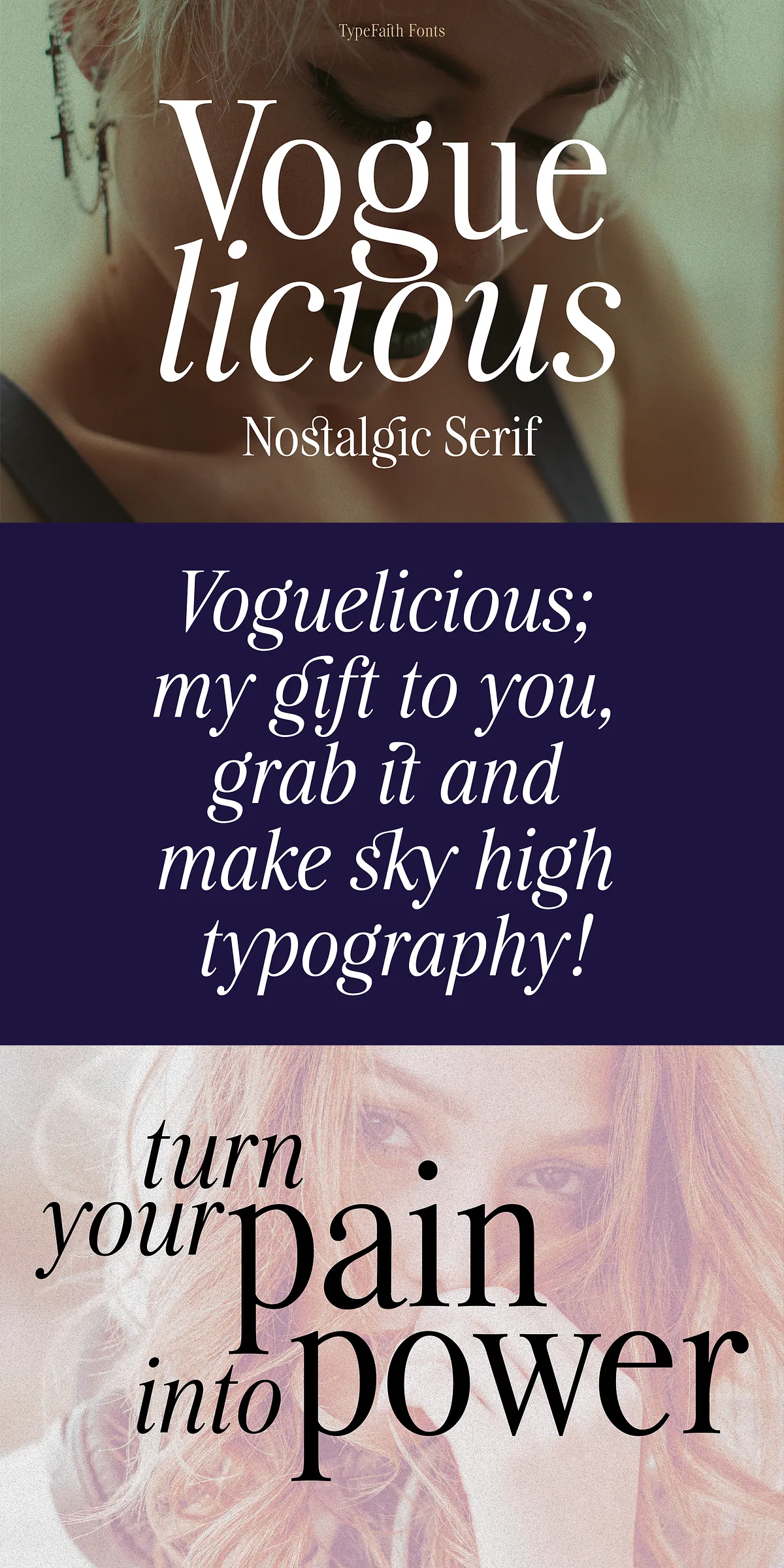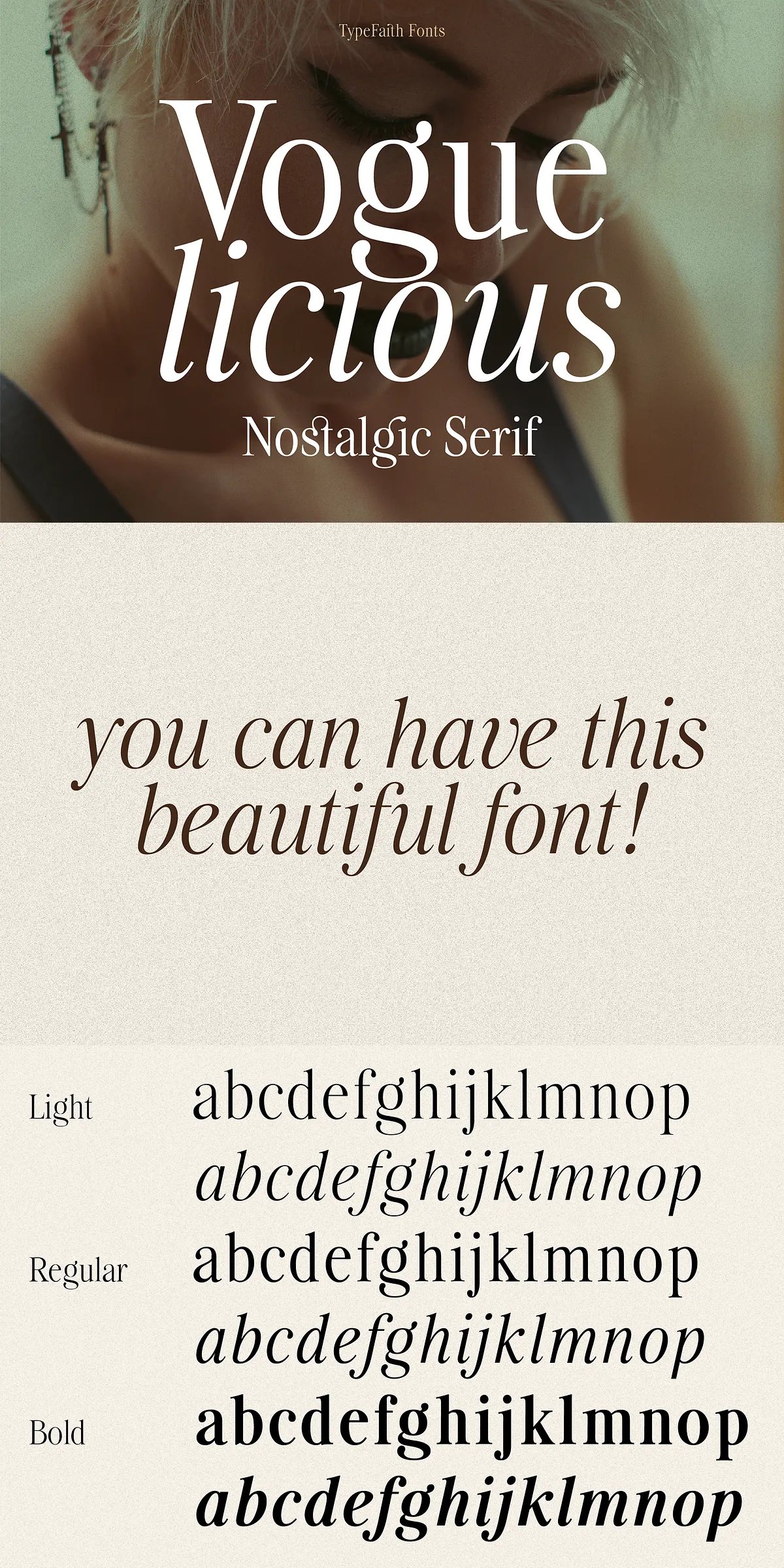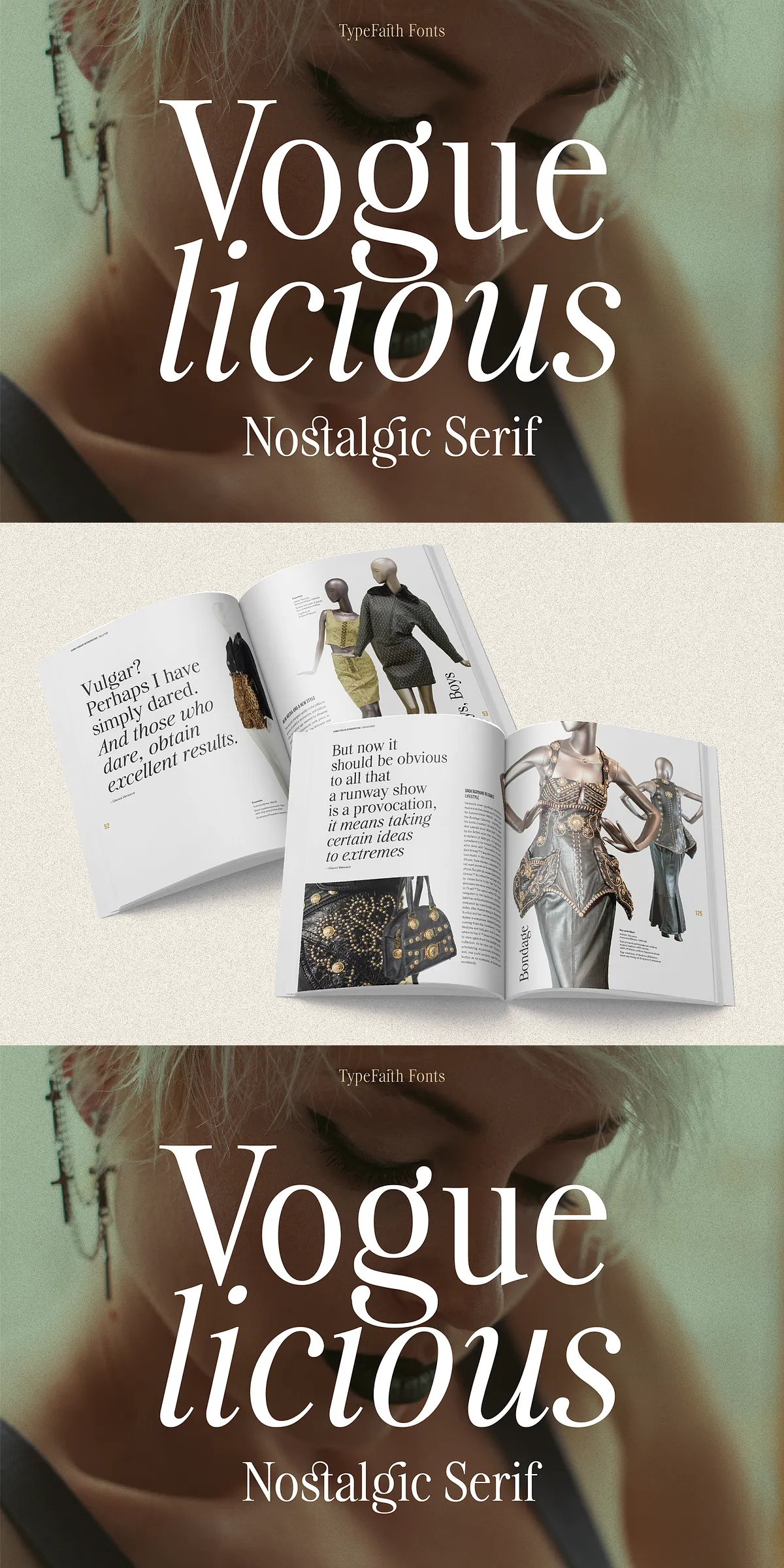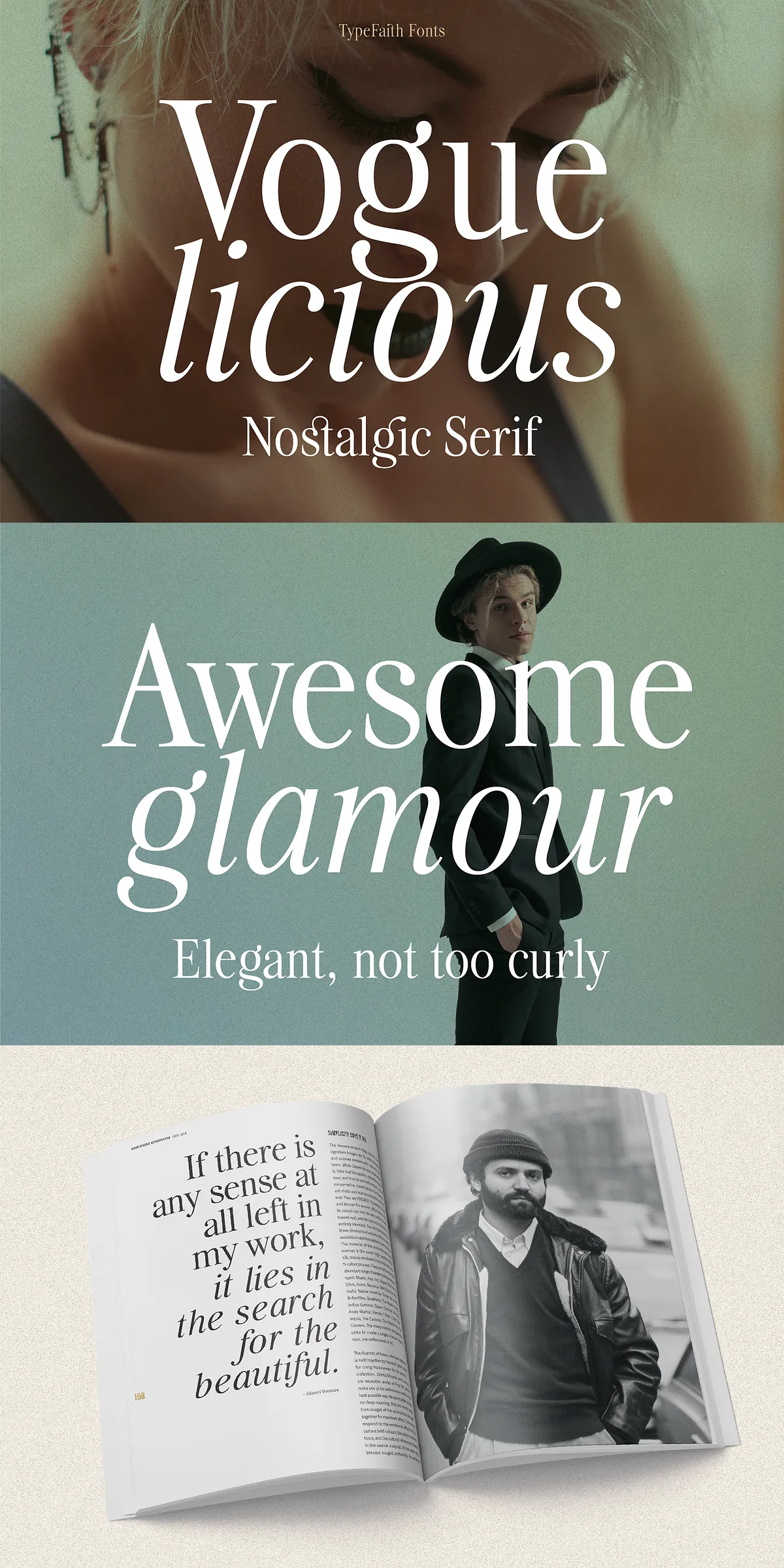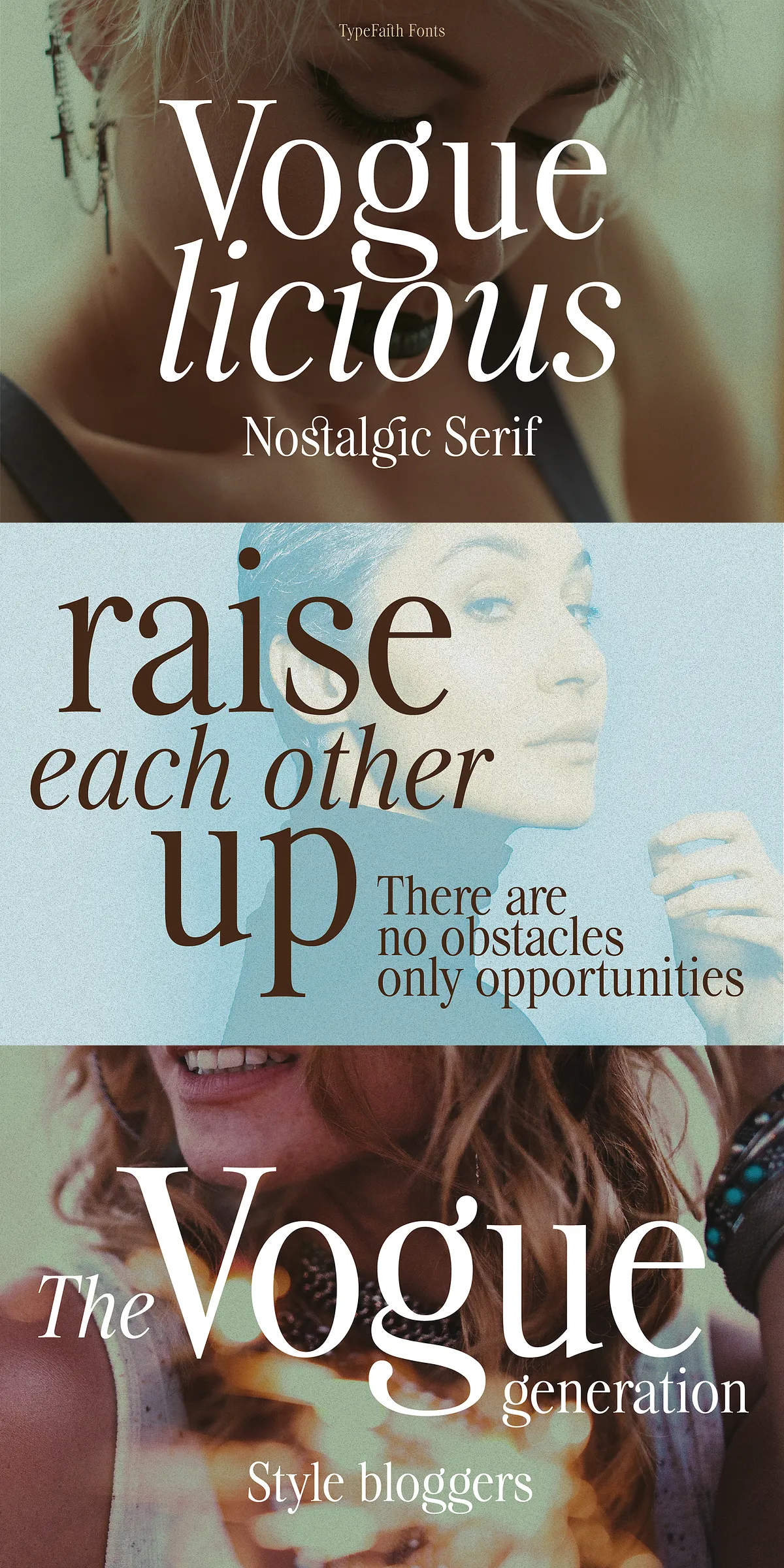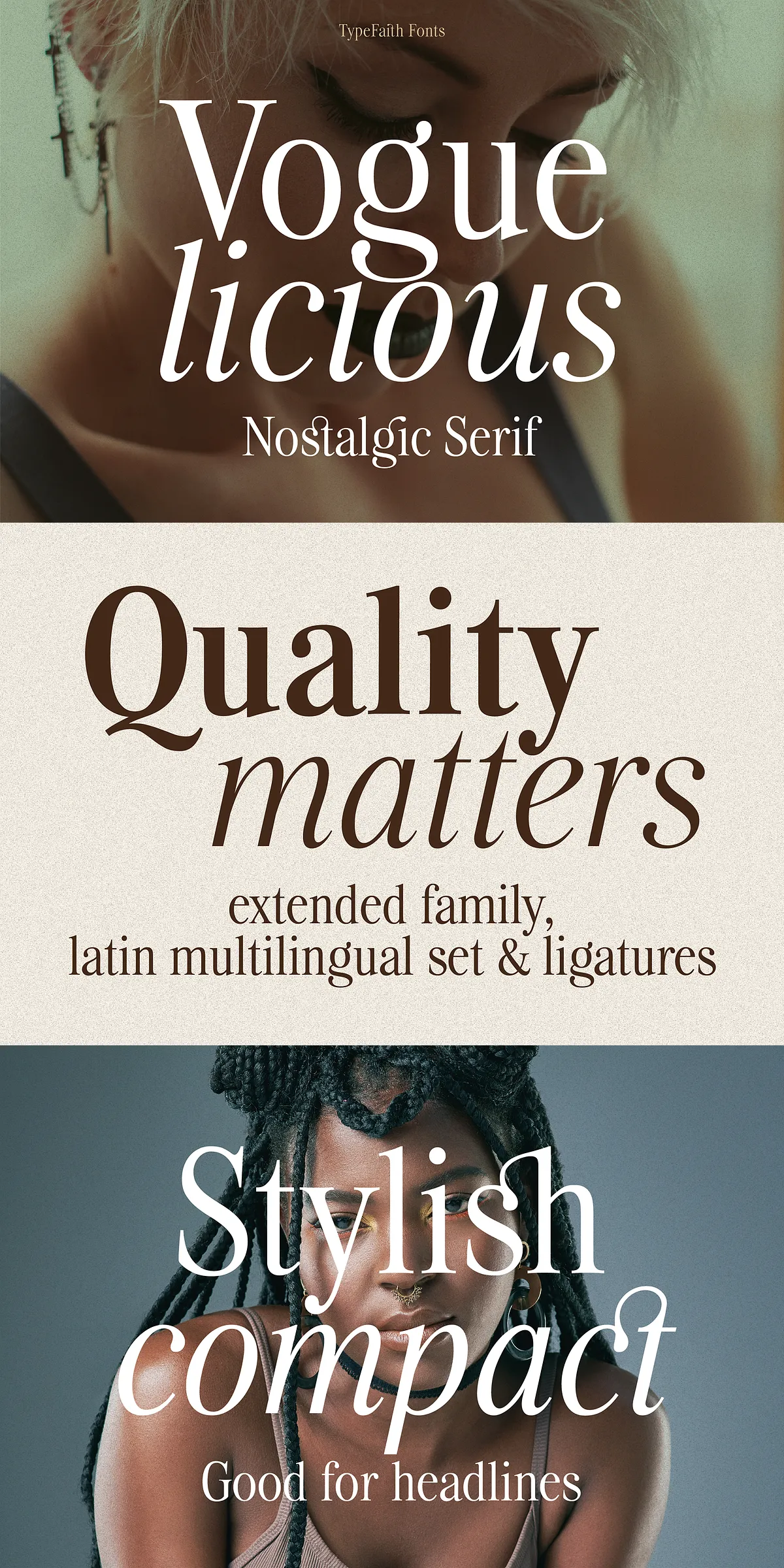
Step into a world of refined sophistication with Voguelicious—a timeless serif font family that captures the essence of classic French elegance, vintage fashion, and intellectual charm. Crafted for creatives who demand both beauty and function, Voguelicious isn’t just a font; it’s a statement. With six meticulously designed weights and true, flowing italics, this typeface brings a sense of chic authenticity to every project, from editorial spreads to luxury branding.
Elevate Your Design with True Vintage Sophistication
Designers and art directors will immediately feel the difference with Voguelicious. Its compact, balanced structure ensures high readability and visual polish even at smaller sizes, making it ideal for magazines, fashion editorials, and print layouts where space is precious but impact is paramount. Each character tells a story—one of cadre noir dressage precision, cozy academia warmth, and 1950s Parisian elegance.
- True Italic Variants — Not simulated, but handcrafted to match the soul of the regular design.
- Six Stylistic Weights — From delicate light to powerful bold, ensuring creative flexibility for any tone.
- Compact Proportions — Maximizes content density without sacrificing clarity or grace.
- Fluid Serifs & Elegant Curves — Create a harmonious rhythm across lines of text.
This is not a font that blends in—it commands attention with quiet confidence. Whether used in headline copy or body text, Voguelicious adds a layer of intellectual allure and visual authority.
Unlock Creative Power with Advanced OpenType Features
What sets Voguelicious apart is its deep integration of modern typography tools. Every design decision was made to empower creativity through expressive control, accessible via OpenType features in your favorite software—Adobe InDesign, Illustrator, Figma, and more.
- Ligatures — Smooth transitions between common letter pairs like fi, fl, ff for a cleaner, more professional look.
- Stylistic Alternates — Replace standard glyphs with curated variations to add personality and visual interest.
- Contextual Alternates — Automatically optimize letterforms based on their position for natural, handcrafted flow.
- Swash and Titling Forms — Highlight key words in display text with elegant flourishes that elevate impact.
Use these features with intention—like a master chef adjusting seasoning. A few well-placed alternates can transform a standard line into a design masterpiece.
Perfect for Fashion, Editorial, and Premium Branding
Built with the fashion industry in mind, Voguelicious thrives wherever elegance matters. Its vintage soul and modern precision make it a favorite for:
- Fashion & Lifestyle Magazines — Create covers and spreads that feel both classic and current.
- Brand Identity & Logo Design — Establish a unique, memorable voice with a touch of French flair.
- Packaging & Luxury Goods — Add instant prestige to boxes, labels, and gift sets.
- Fashion Accessories & Apparel — Use on tags, hangtags, and limited-edition items for a cohesive aesthetic.
- Editorial Design & Book Typography — Ideal for prefaces, chapter titles, or section headers with refined character.
It’s the font of choice when you want your work to feel timeless, intentional, and deeply human.
Created with Purpose by TypeFaith Fonts
Designed by Leon Hulst at TypeFaith Fonts, a creative studio based in Utrecht, Netherlands, Voguelicious is born from a passion for useful, beautiful type. The team at TypeFaith Fonts builds fonts not just for clients—but for their own design studio and creative community. Every project is tested in real-world scenarios to ensure usability, beauty, and longevity.